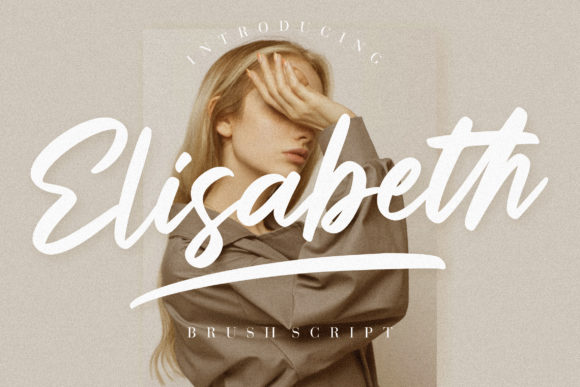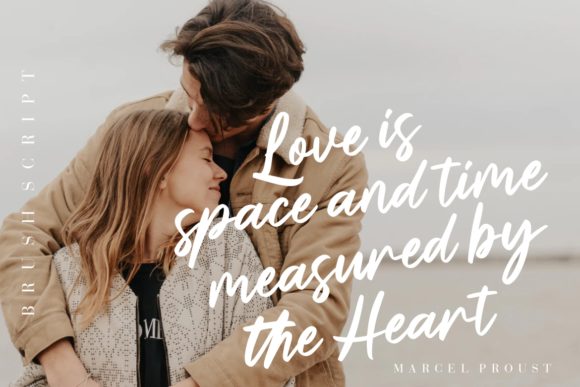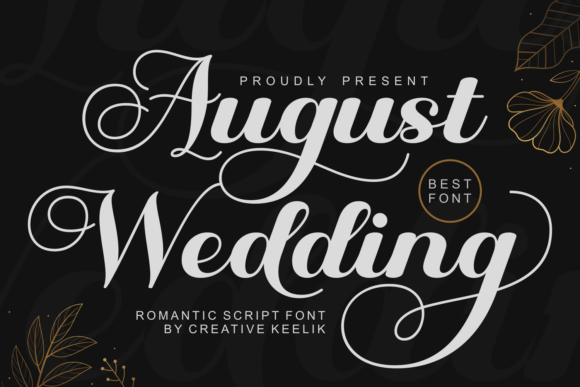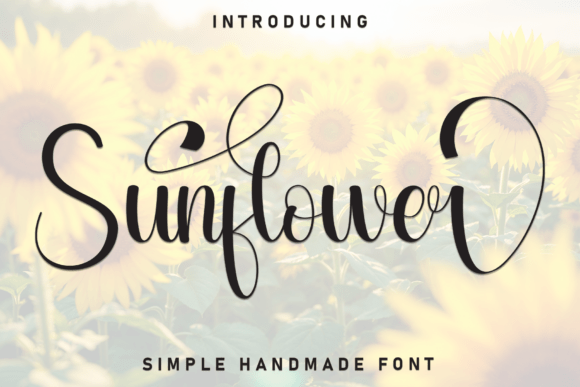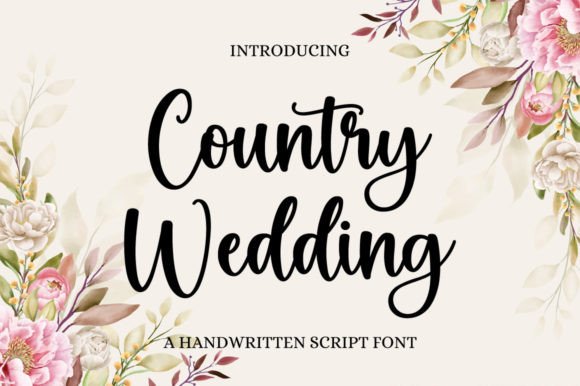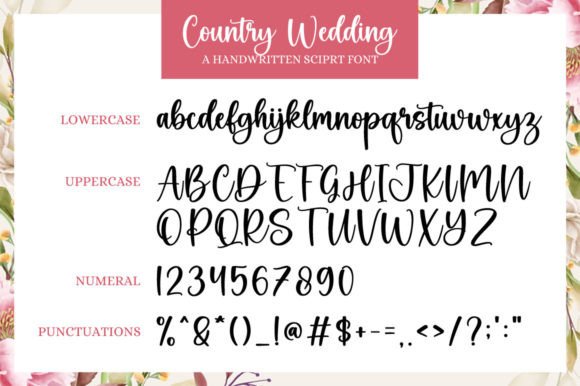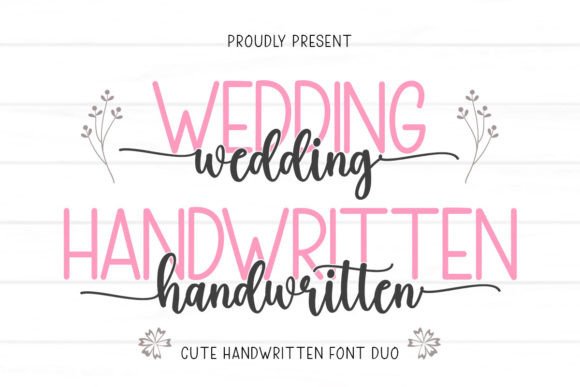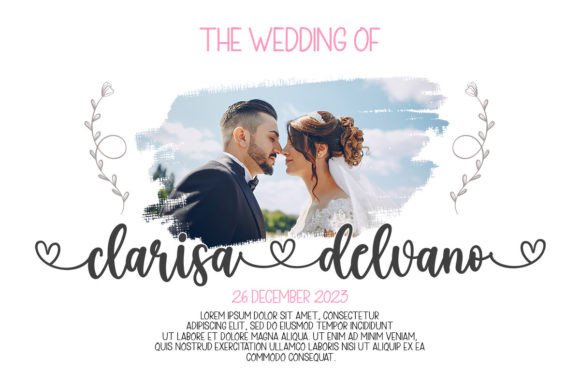
23 Best Wedding Fonts for 2026: Elegant Scripts & Calligraphy
Introduction: The Art of the First Impression
When it comes to your wedding day or a high-end event, the celebration doesn’t actually start at the altar—it starts in the mailbox. The moment your guests touch the paper and see the elegant curves of a handwritten script, they aren’t just reading words; they are feeling the “vibe” of your entire love story.
Typography is the visual voice of your celebration. Whether it’s the romantic flourish of a classic calligraphy font or the clean, organic lines of a modern signature, the right typeface captures the essence of the moment. In this guide, we’ve curated a stunning collection of the finest Wedding Fonts to help you turn your creative vision into an unforgettable reality.
Expert Insight: Why Typography Matters in Wedding Design
As a designer, I’ve seen how a single font choice can either elevate a brand to luxury status or make it feel like an afterthought. Here is why choosing a specialized Wedding Font is a game-changer for your project:
- Emotional Resonance: Unlike standard system fonts, wedding scripts are designed with “human” imperfections—dancing baselines, varying stroke weights, and elegant ligatures. These details trigger an emotional response, making your design feel intimate and personal.
- The Power of Customization (PUA Encoding): Modern professional fonts come “PUA encoded.” This is a secret weapon for designers, allowing you to access hundreds of hidden swashes and decorative hearts. It gives you a custom, hand-lettered look without the price tag of a professional calligrapher.
- Visual Hierarchy: A great wedding font does the heavy lifting for you. By using a bold, ornamental script for names and a light, clean version for details, you create a visual rhythm that guides the eye and makes the information easy (and beautiful) to digest.
- Cohesion Across Touchpoints: Using a consistent font family across your invitations, menus, place cards, and thank-you notes creates a seamless brand experience. It shows your guests that every detail was handled with care and sophistication.
Pro-Tip: “Don’t just look for a pretty font; look for a font that tells the right story. A ‘Country Wedding‘ font speaks of warmth and soil, while ‘Elisabeth‘ speaks of champagne and crystal. Choose the one that matches your heartbeat.”
Quick Guide: 23 Wedding Fonts
| Font Name | Style & Key Features | Best Use Cases |
| Wedding Handwritten | Harmonious Duo (Script + Sans) | Versatile: Headers, cards, and layouts |
| Elisabeth Font | Sophisticated, balanced calligraphy | Boutique branding, luxury packaging, and RSVP cards |
| Wedding Signature | Calligraphic, PUA encoded | Personal signatures, shirts, and mugs |
| August Wedding | Warm, sophisticated, and flowing | Summer wedding invites, destination branding, and social media |
| Sunflower Script | Organic, airy, and radiant | Boho-style invites, eco-branding, and organic packaging |
| Country Wedding | Rustic, heartfelt, and textured | Barn weddings, artisanal branding, and personalized crafts |
| Rustic Wedding | Modern calligraphy, rustic charm | Craft projects, presentations, greeting cards |
| Wedding Font BUNDLE | Mega-pack of 10 distinct styles | Large-scale projects, signage, and decor |
| Dream Wedding Duo | Balanced Script & Sans pair | Full wedding identity and social media headers |
| The Wedding Script | Ornamental and bold | High-end logos, menus, and invitations |
| Wedding (Flowing) | Traditional grace, rhythmic flow | Formal invites and sophisticated stationery |
| Wedding Signature (V2) | Unique, “living” characters | Branding, eye-catching logos, and quotes |
| Special Wedding | Fresh, simple, and unique | YouTube banners, flyers, and ID cards |
| Wedding Signature (V3) | Natural flow, refined structure | Photography watermarks and lifestyle logos |
| Wedding Roses | Decorative with floral rose elements | Romantic events and garden-themed designs |
| Dream Wedding (V2) | Exquisite, seamless transitions | Intimate letters and romantic concepts |
| Wedding (Light) | Delicate, airy, and luxurious | Minimalist branding and high-end print |
| Wedding Moment | Festive and nostalgic charm | Gift labels and holiday-themed projects |
| Wedding Dress | Playful, “dancing” baseline | Sweet social media quotes and card designs |
| Wedding Valentine | Delicate and well-balanced | Soft branding and subtle design accents |
| Wedding (Organic) | Handcrafted, “ink-on-paper” feel | Eco-packaging and authentic signature marks |
| Wedding Ring | Classic, dependable, and clean | DIY wedding projects and traditional invites |
| Wedding Monogram | Contemporary class, impeccable form | Luxury branding, monograms, and editorials |
Quick Selection Tips:
- Need a Font Pair? Go for the Duos (Wedding Handwritten or Dream Wedding Duo) to ensure your titles and body text match perfectly.